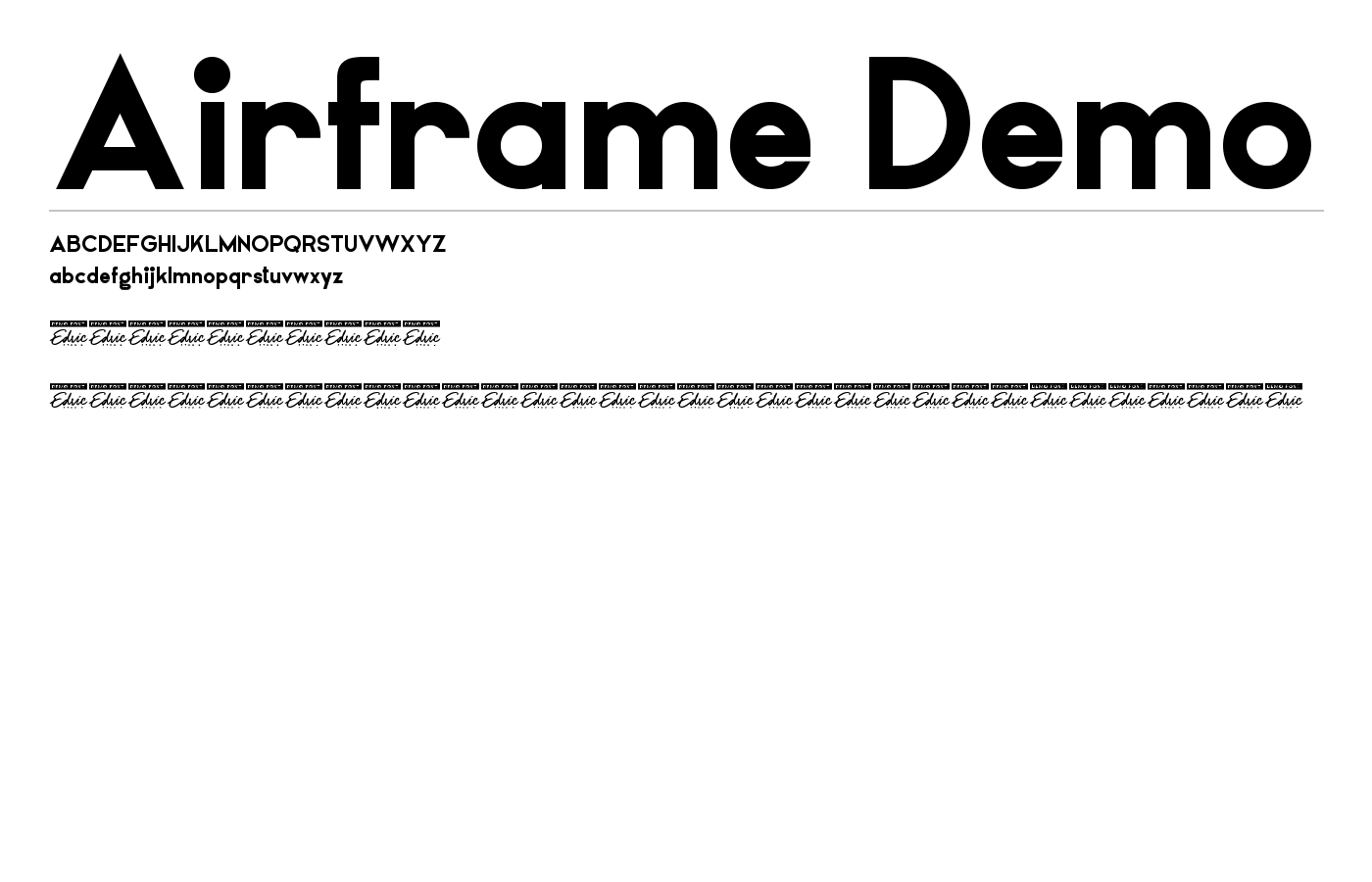
Airframe Demo is a bold, geometric sans serif font featuring clean, modern lines and a tall x-height that enhances readability. Its uniform stroke weight and simple letterforms convey a sleek, contemporary feel, making it a great choice for branding, headlines, and digital use where clarity and impact are key. This font works well for modern, minimalist designs seeking a confident and straightforward style.
Airframe Demo Font
About Airframe Demo Font